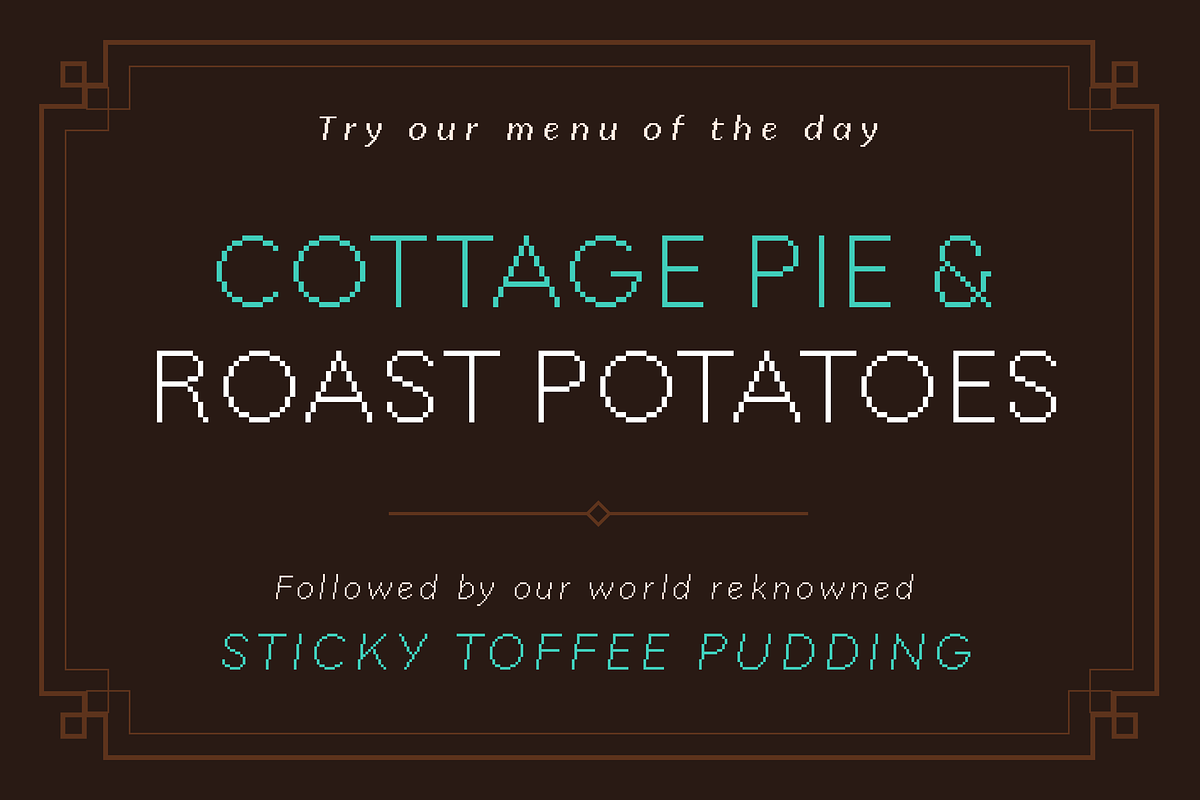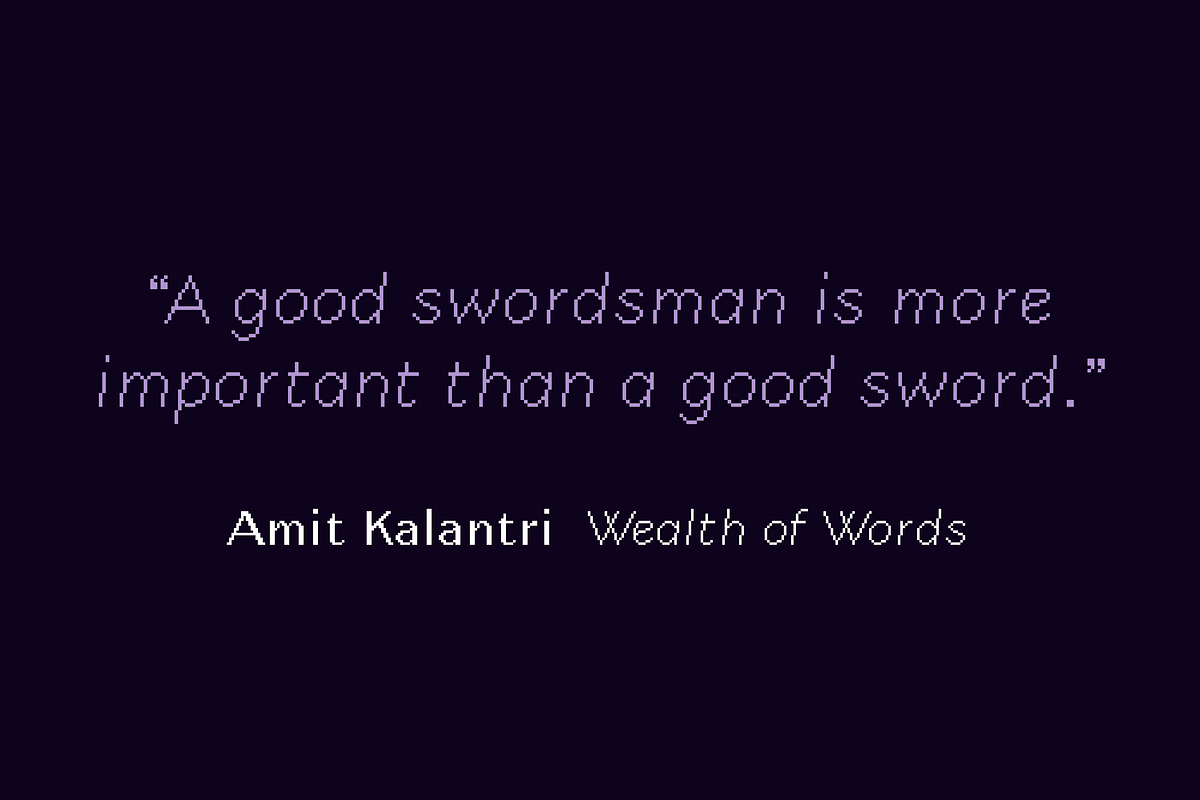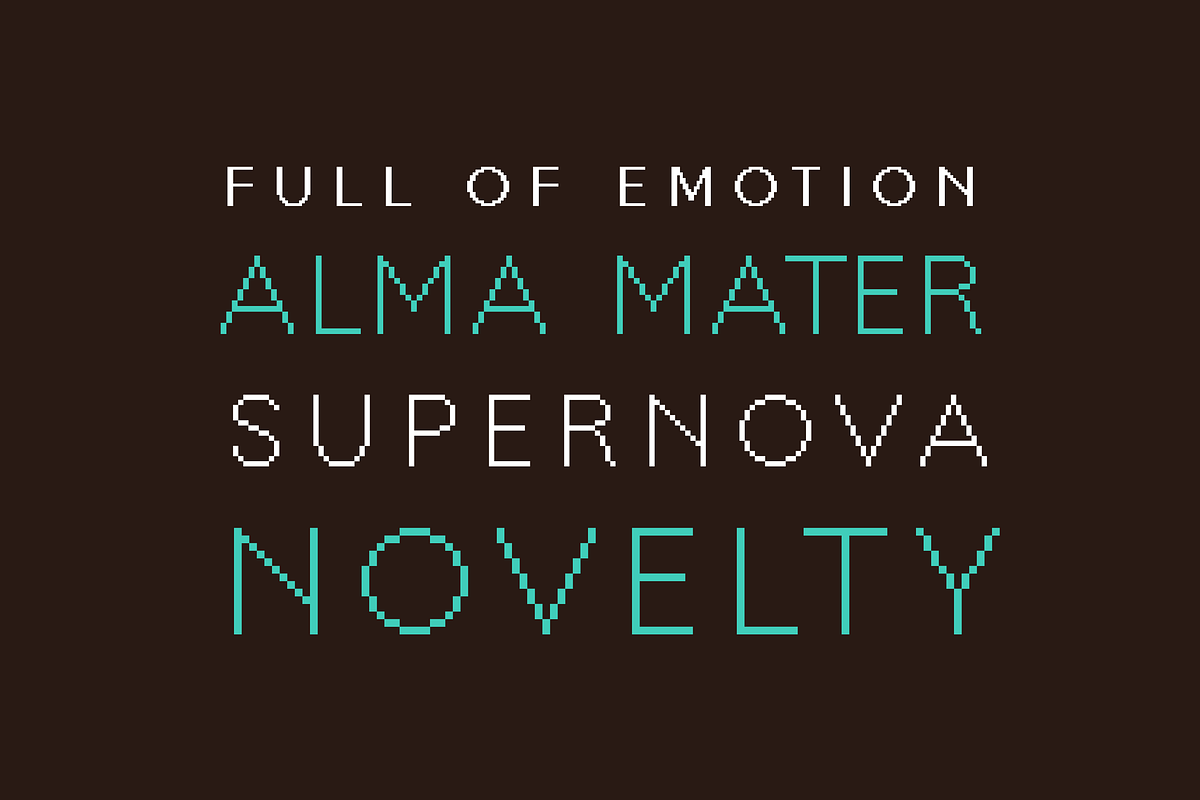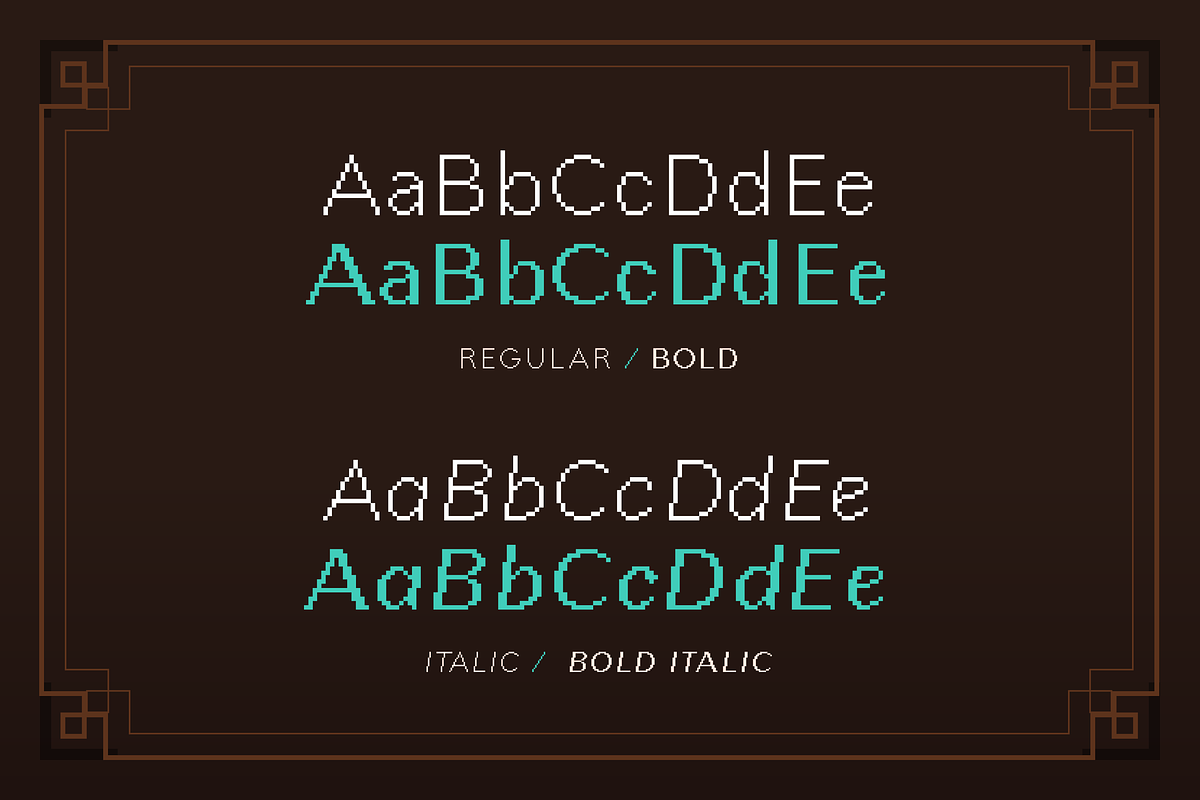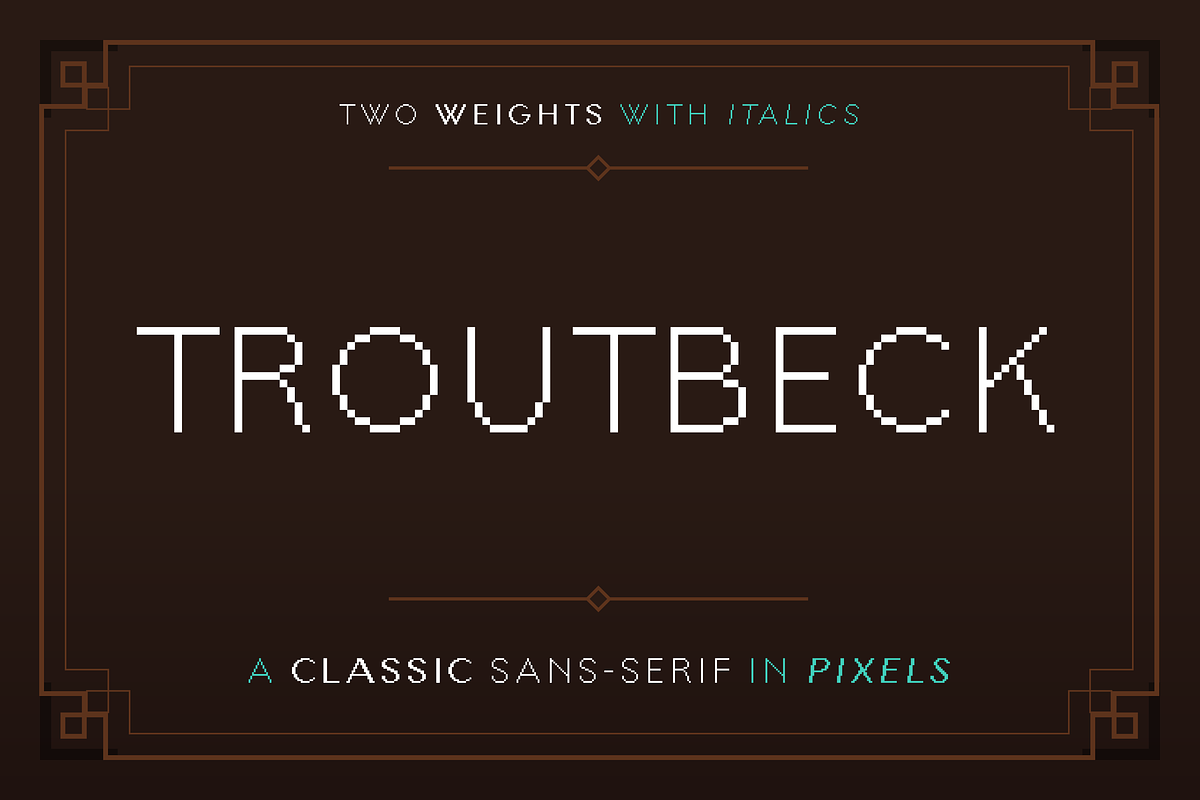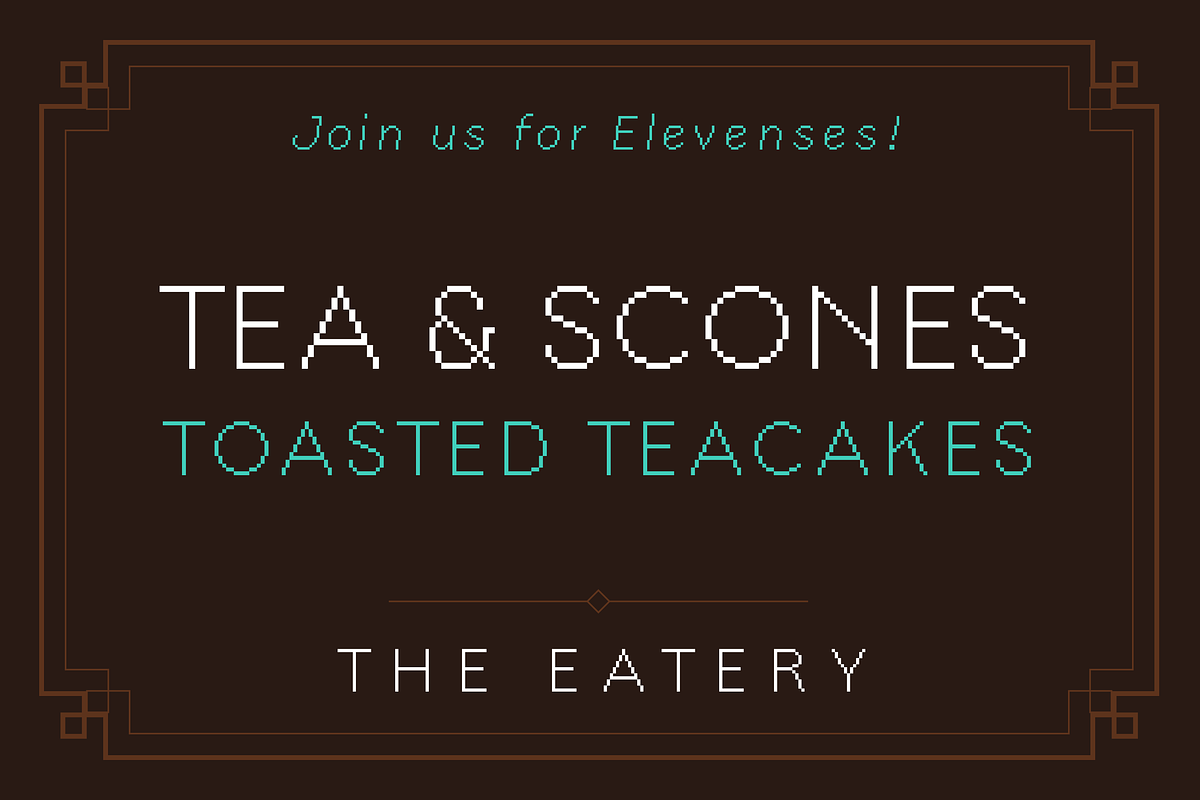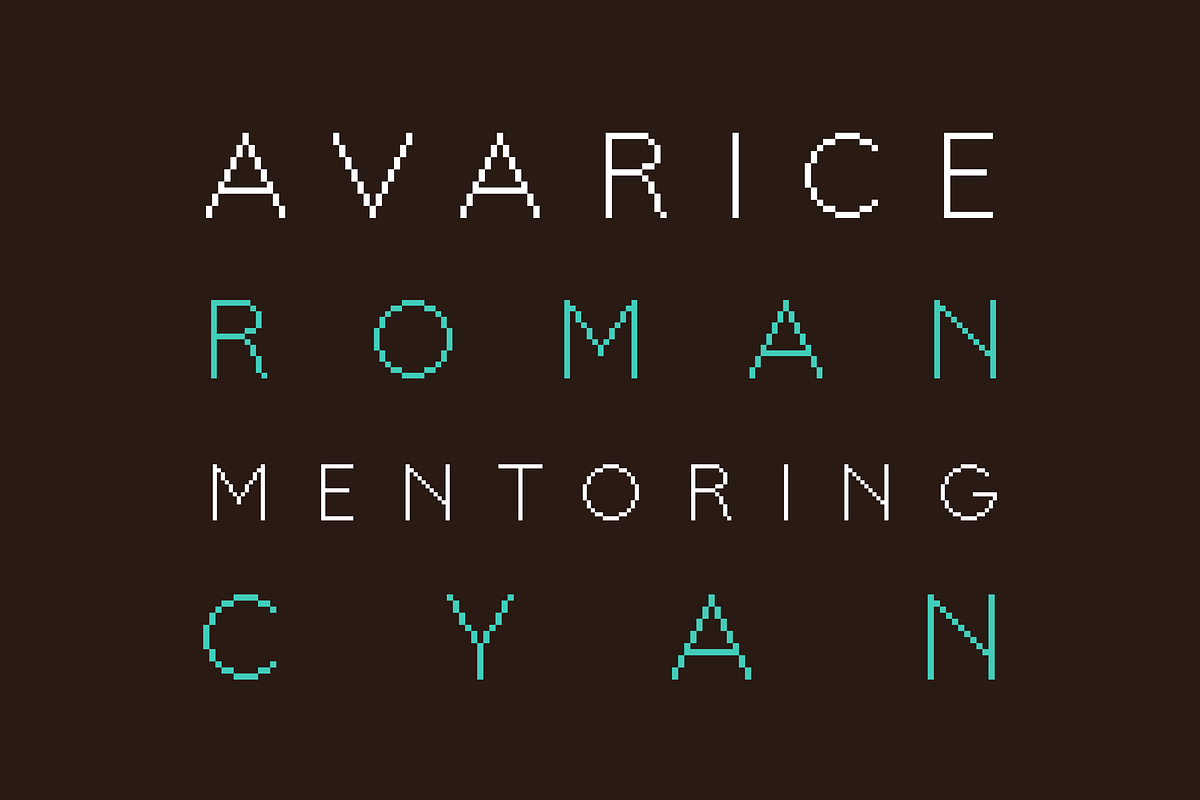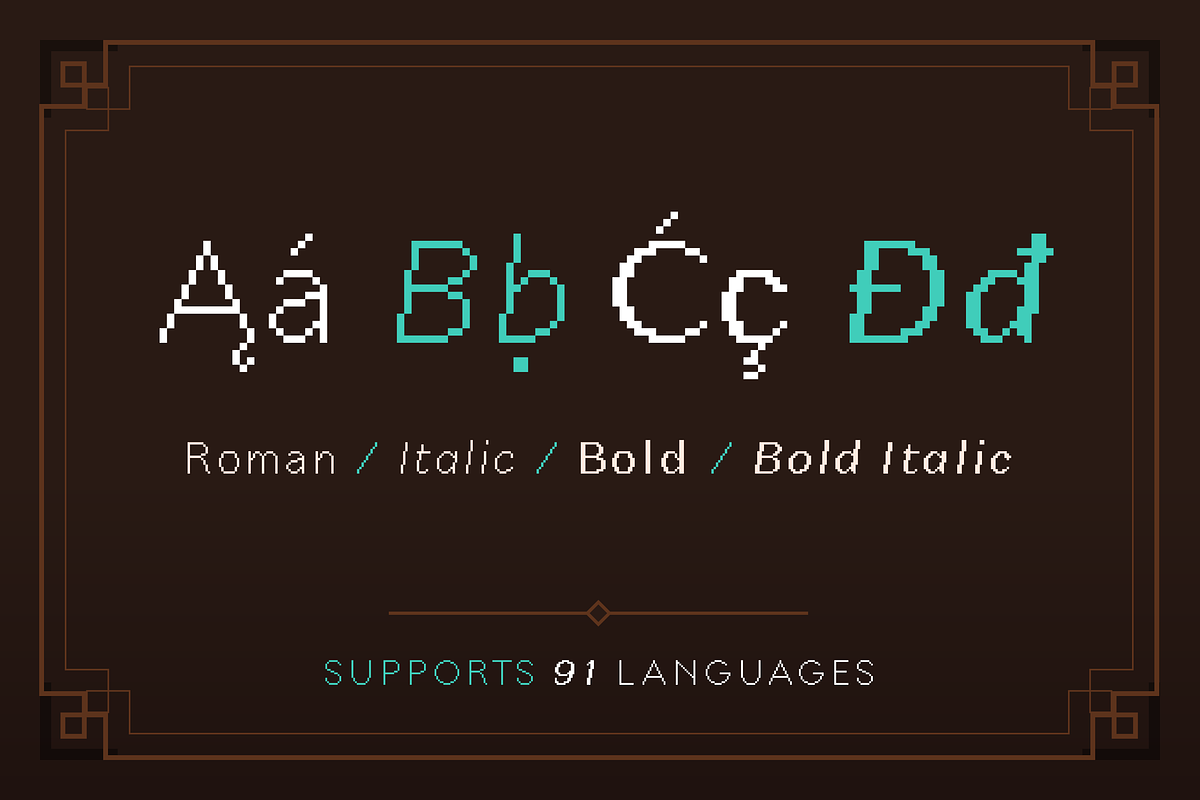
Troutbeck Sans Pixel Font (4 styles)
A clasic sans-serif rendered as a pixel font. Comes as set of four fonts including italics.
- 4 fonts: Regular, Italic, Bold and Bold Italic.
- Supports 91 languages.
- Each font contains 440+ glyphs.